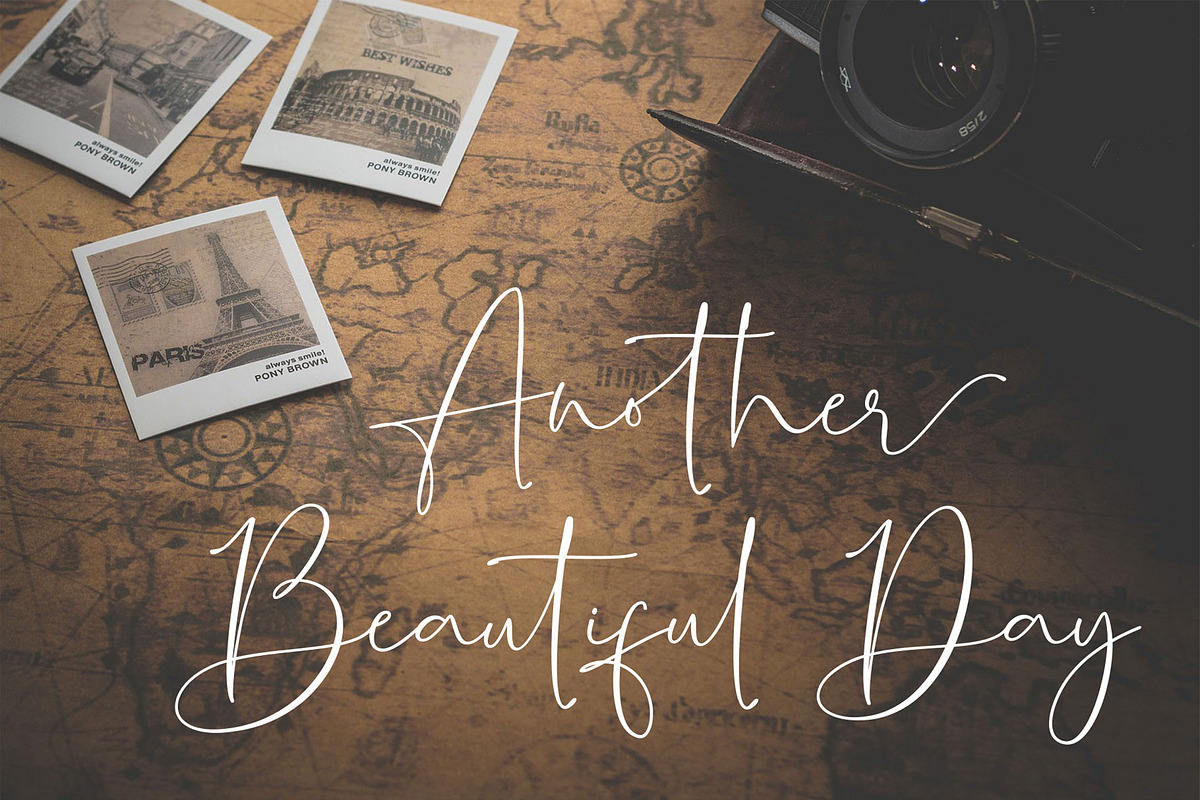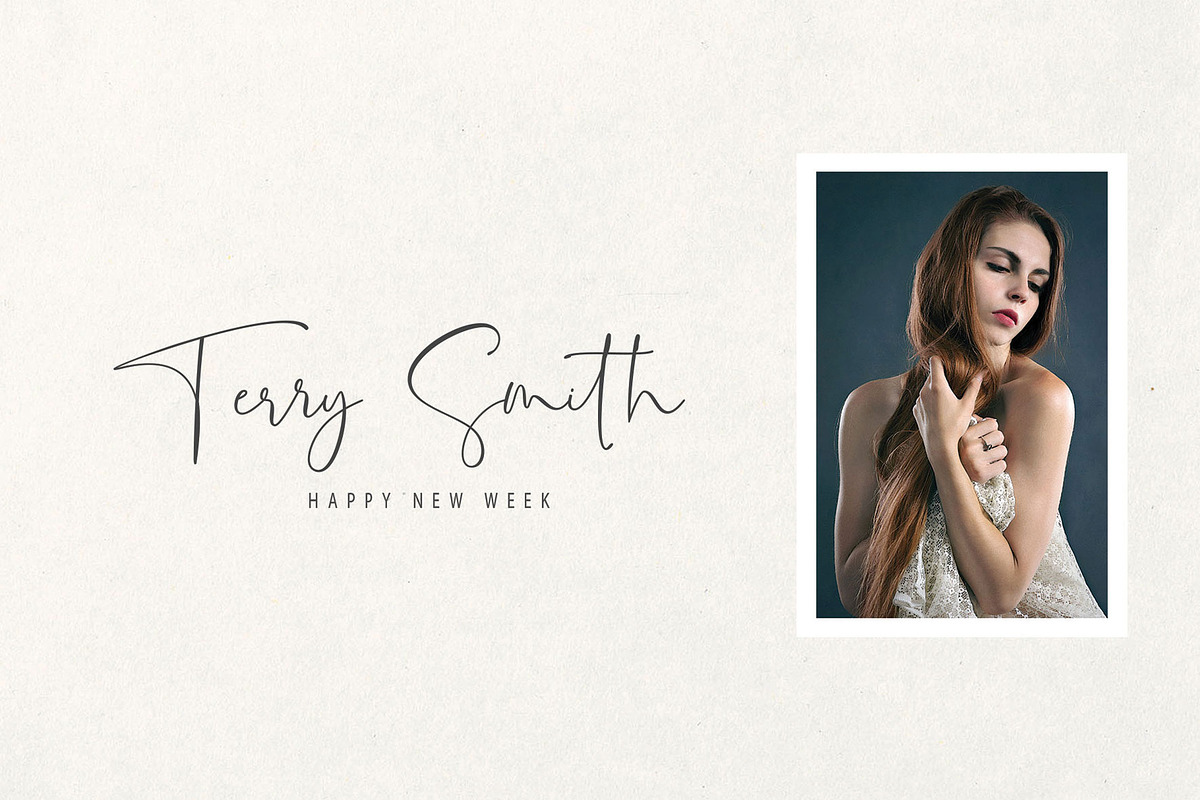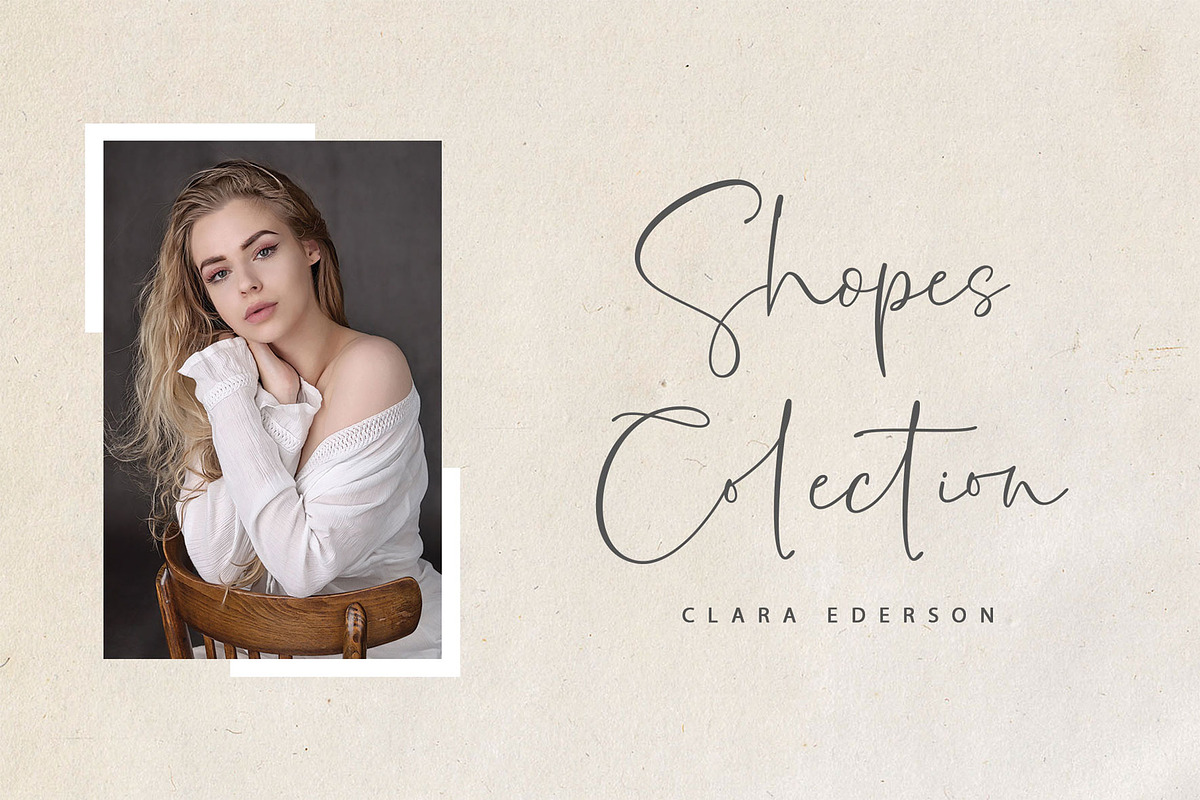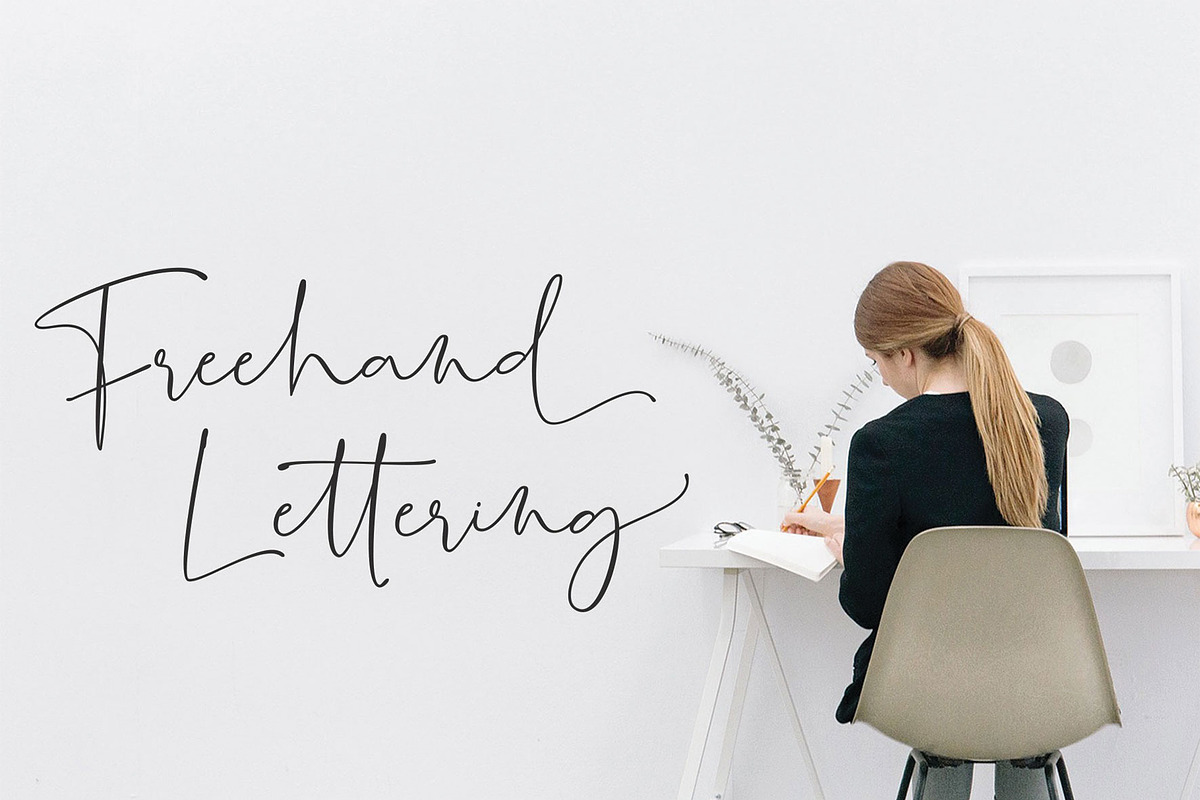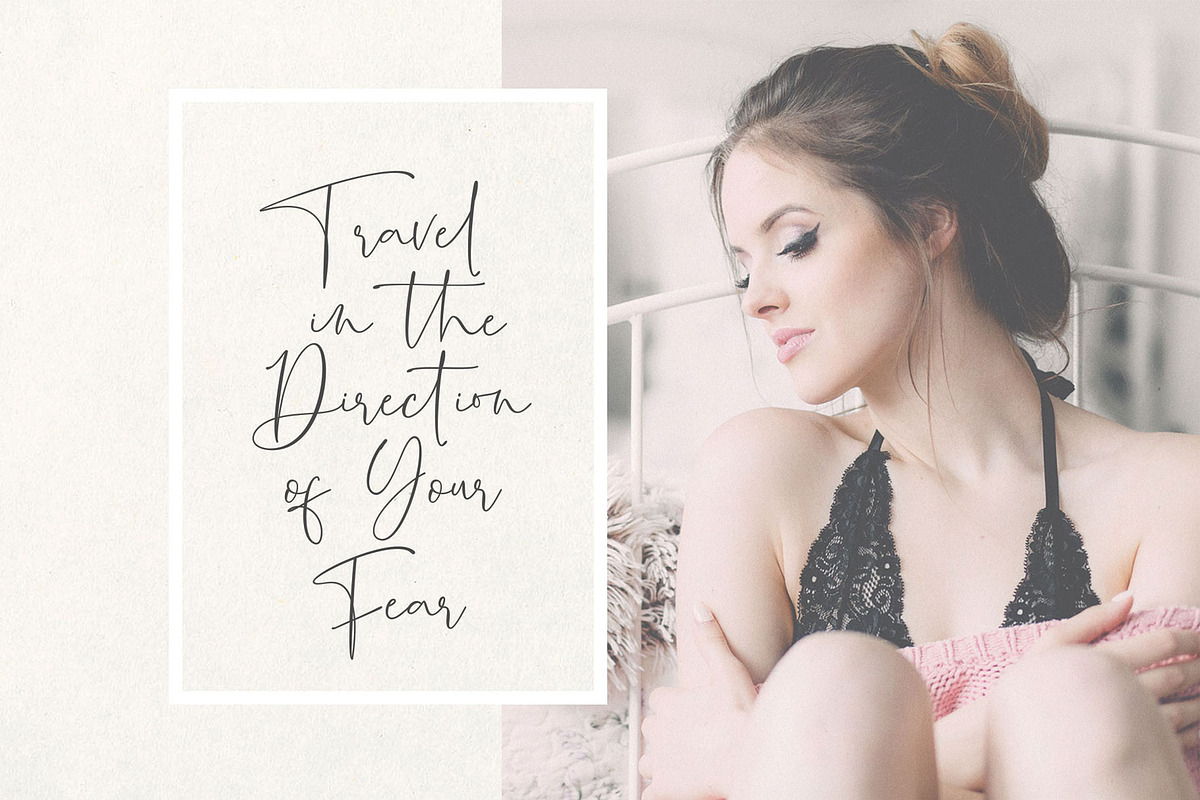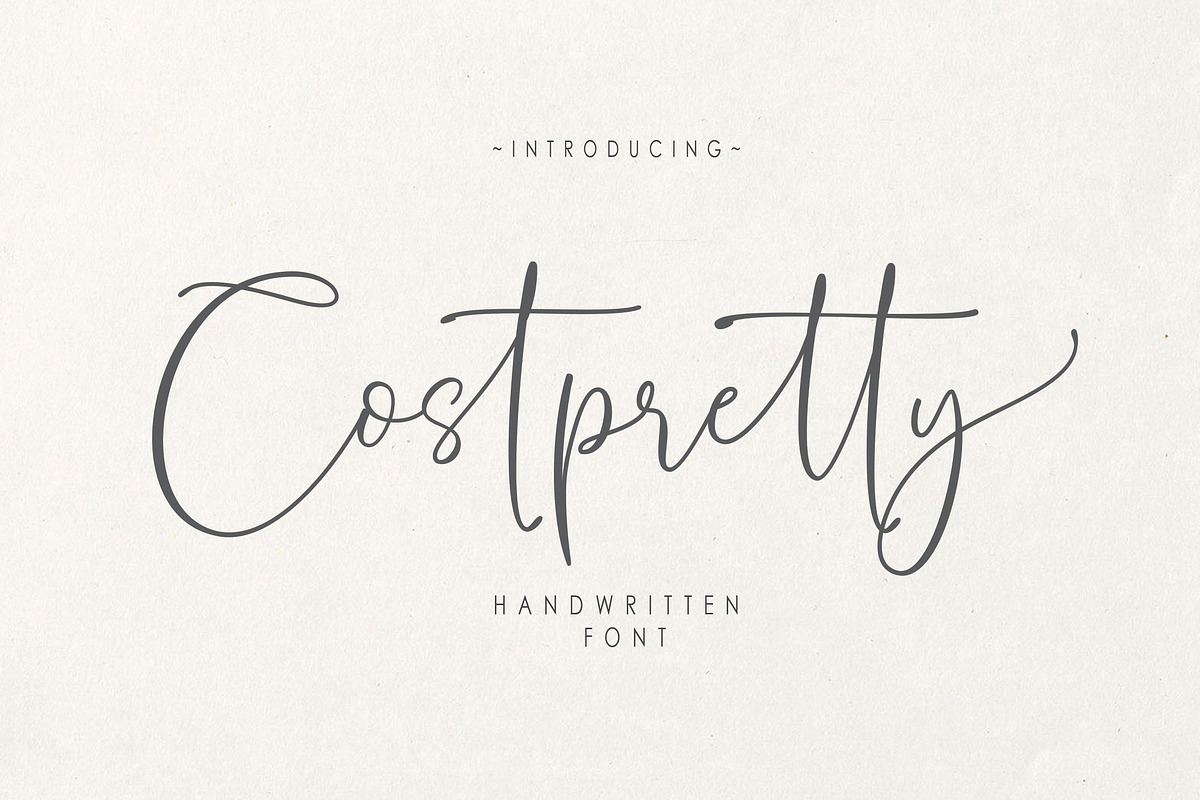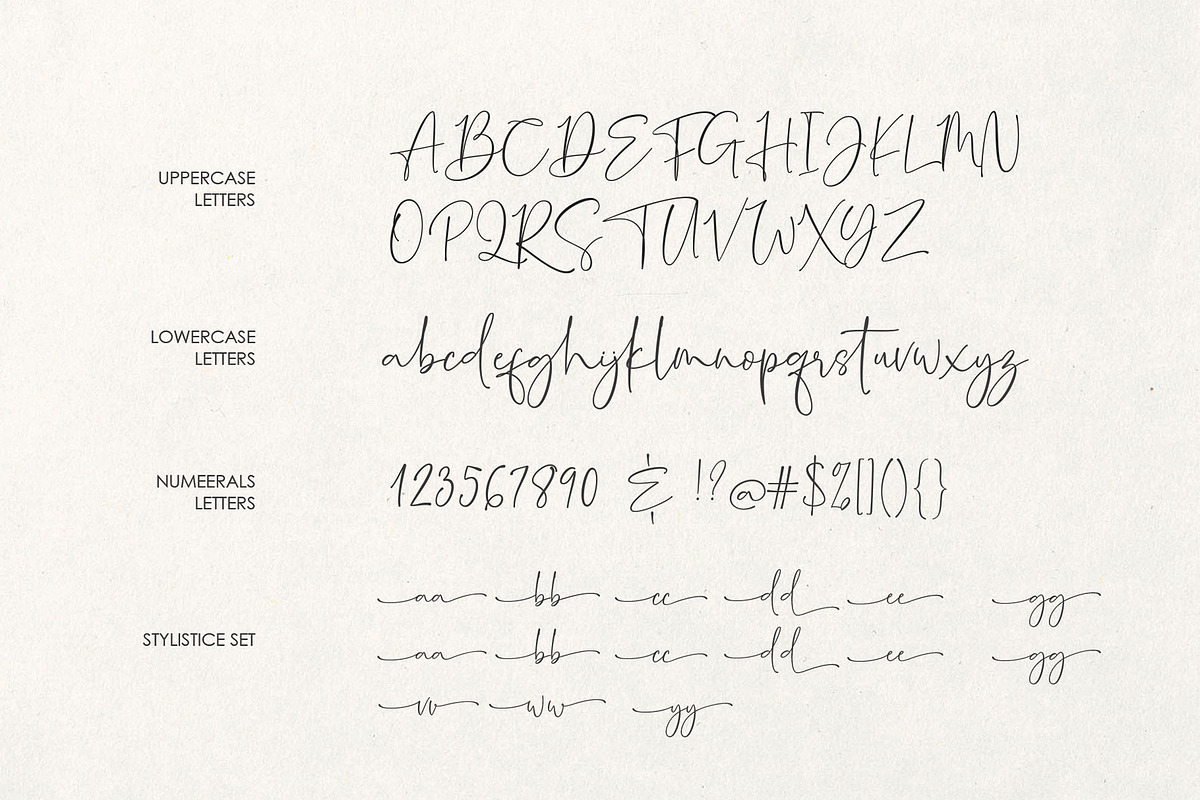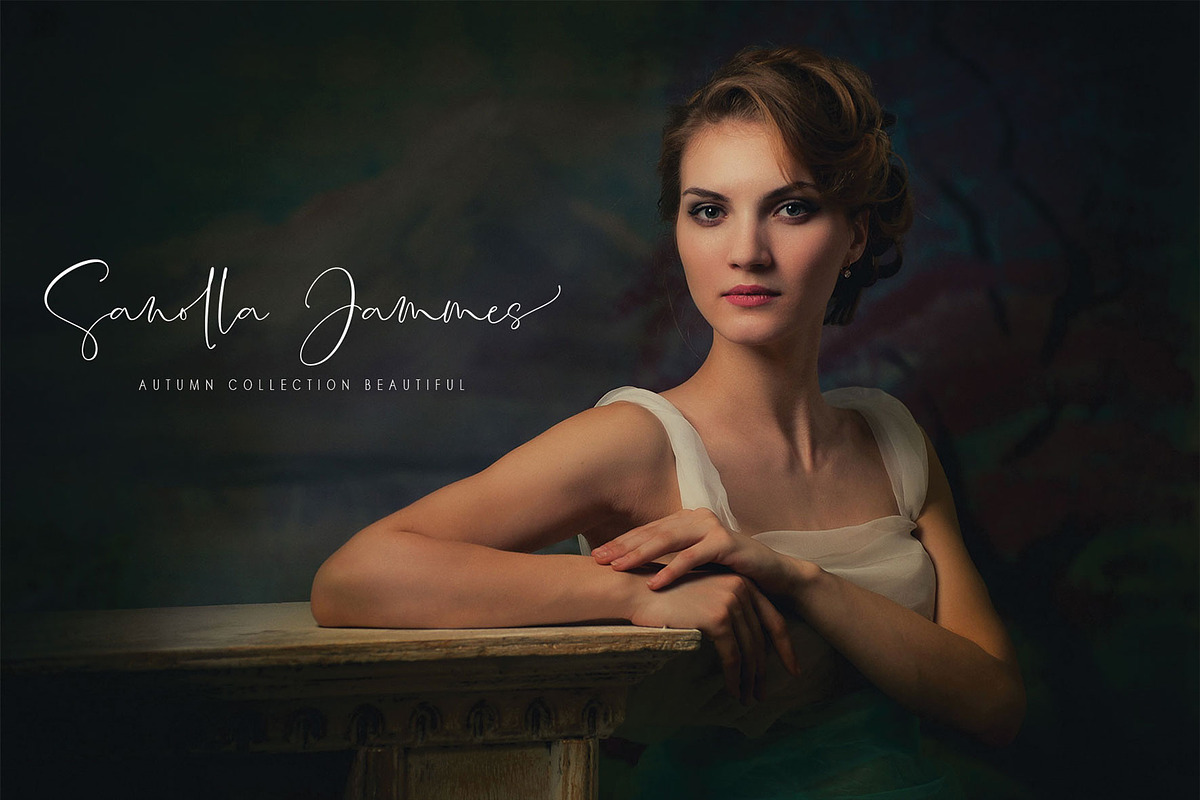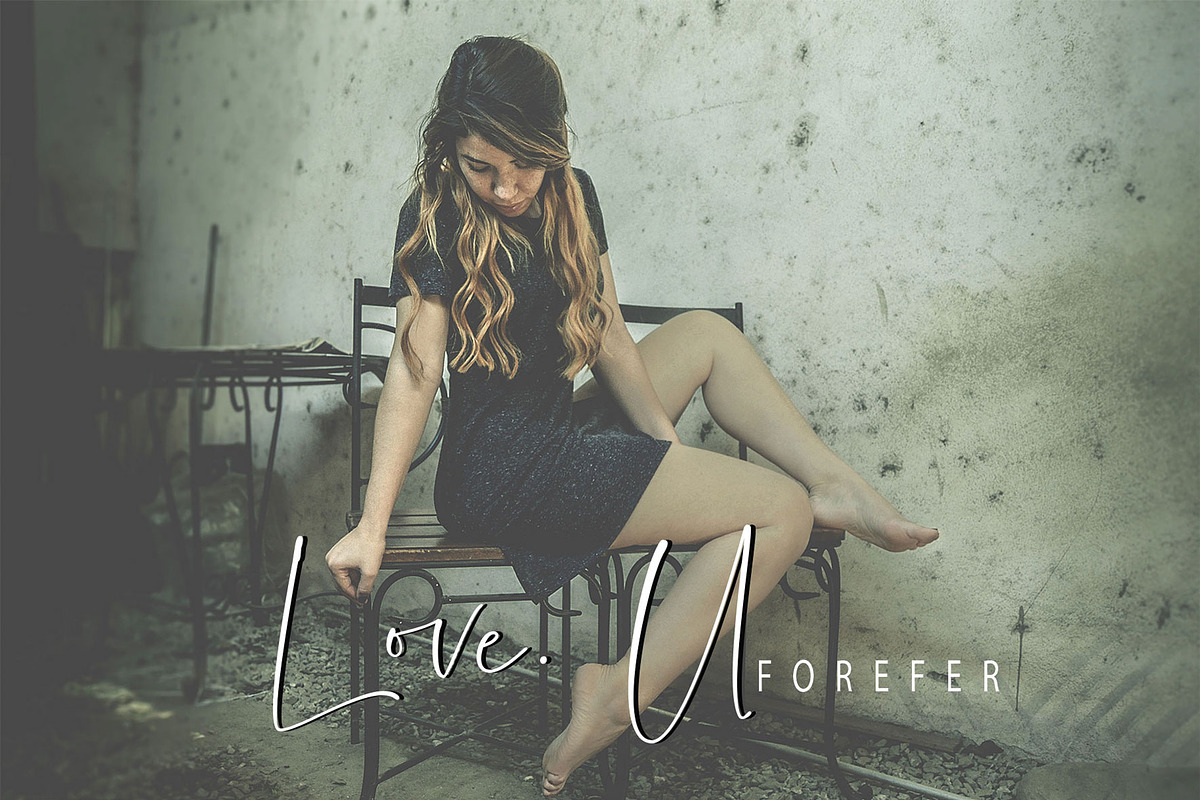
Costpretty Handwritten Font
Costpretty is a thin and elegant handwritten font. Use it for any design projects that require a charming appearance! This font is PUA encoded which means you can access all of the glyphs and swashes with ease!